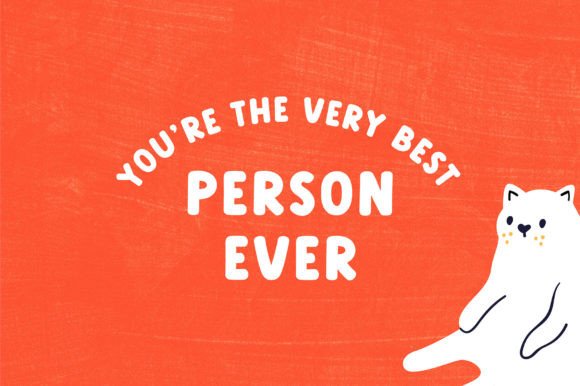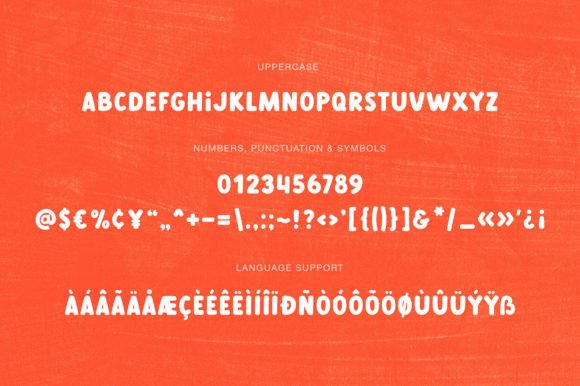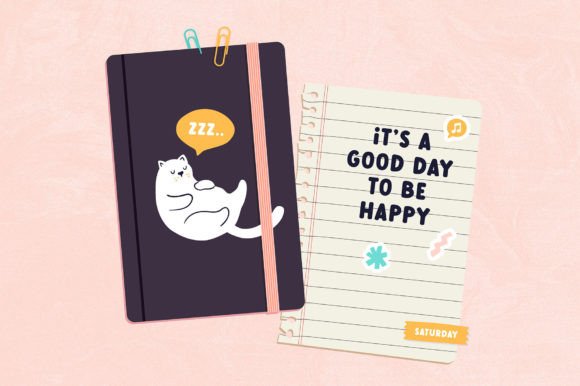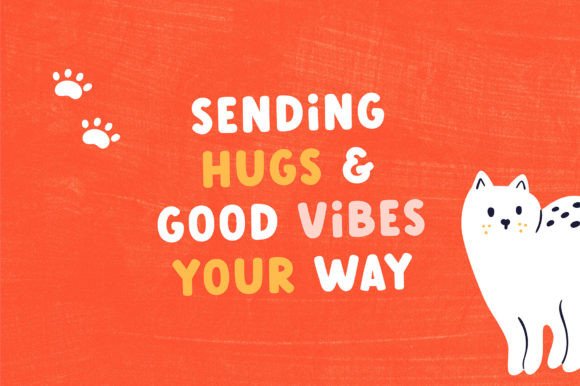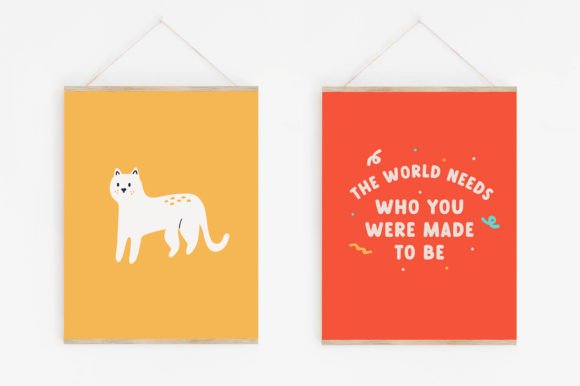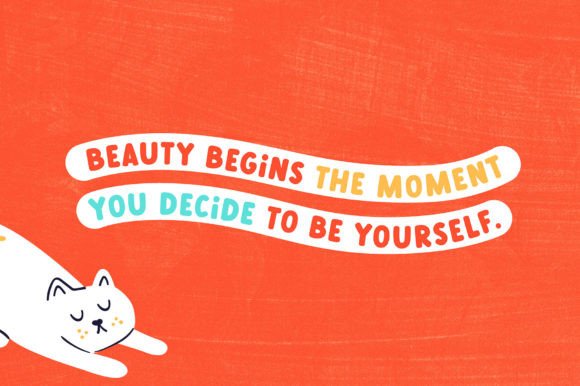
The Purrfect Font: How Fat Cat Font Can Bring Joy to Your Designs
I’ll never forget the time I was working on a project for a children’s cartoon series. I had to create a title card that would capture the show’s playful and whimsical vibe. As I scrolled through font after font, nothing seemed quite right – until I stumbled upon Fat Cat Font. With its rounded corners and chubby bold looks, it instantly brought a smile to my face. I knew right then and there that it was the perfect fit for the project.
A Personal Review of Fat Cat Font
So, what makes Fat Cat Font so special? Let’s dive into the good stuff! 😊
- ✨ Unique and playful design: Fat Cat Font’s bold, rounded corners and chubby letters make it a standout in any design.
- ✅ Versatility: This font is perfect for a wide range of projects, from posters and game titles to cartoon movies and magazine headlines.
- 💕 Emotional connection: Fat Cat Font has a way of bringing joy and excitement to your designs, making it perfect for projects that need a playful touch.
While Fat Cat Font is an amazing addition to any design project, there are a few things to keep in mind:
- ⚠️ Legibility at small sizes: Fat Cat Font can be a bit tricky to read at very small sizes, so make sure to test it out before finalizing your design.
- 🤔 Overuse: While Fat Cat Font is incredibly fun and playful, using it too much can make your design feel overwhelming. Balance it out with some simpler fonts for a more cohesive look.
The Story Behind Fat Cat Font
While the origins of Fat Cat Font are shrouded in mystery, it’s easy to imagine that it was created by a designer who loves all things playful and fun. Perhaps they were inspired by the chubby cheeks of their own feline friend, or maybe they just wanted to create a font that would bring a smile to people’s faces. Whatever the story, Fat Cat Font is sure to delight!
| Font Name | Fat Cat Font |
| Author | Julia_Volkova |
Q: What type of projects is Fat Cat Font best suited for?
A: Fat Cat Font is perfect for projects that need a playful and whimsical touch, such as posters, game titles, cartoon movies, and magazine headlines.
Q: Is Fat Cat Font available in different weights or styles?
A: While Fat Cat Font is primarily available in a bold, chubby style, some versions may offer additional weights or styles. Be sure to check the font package for more information.